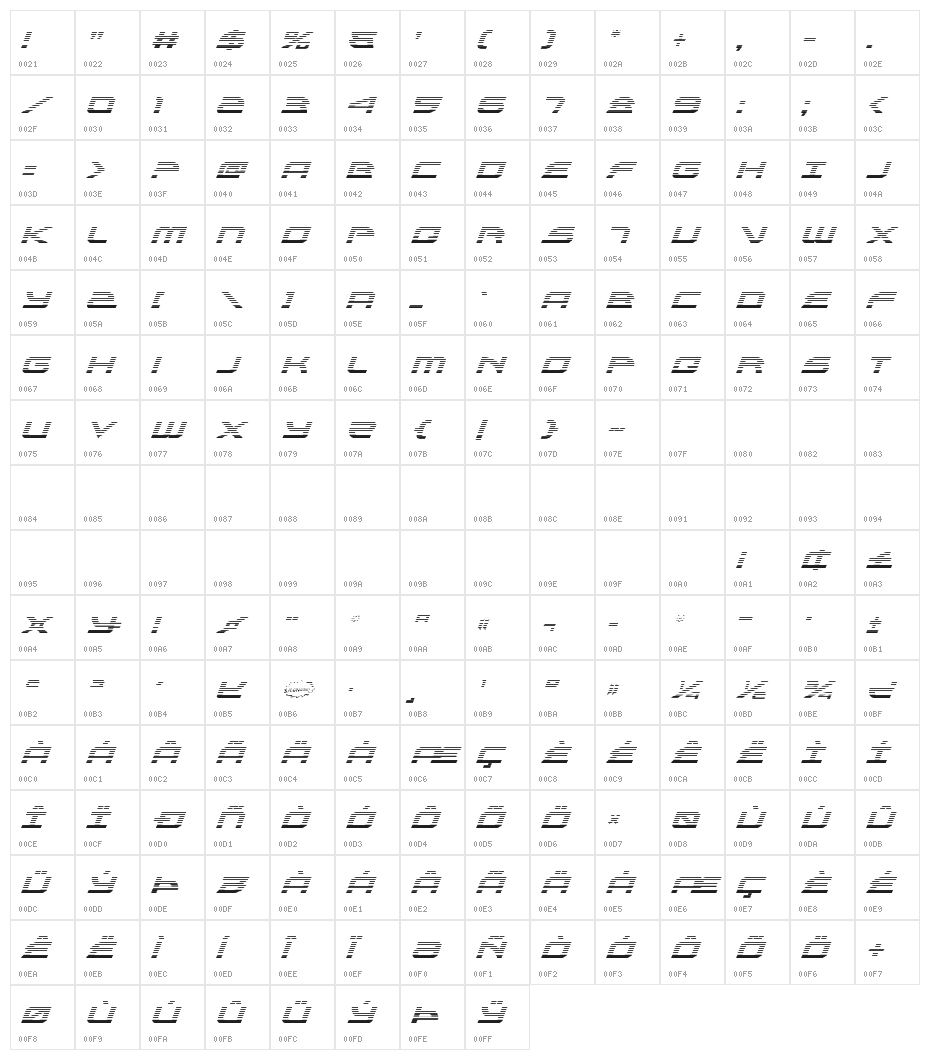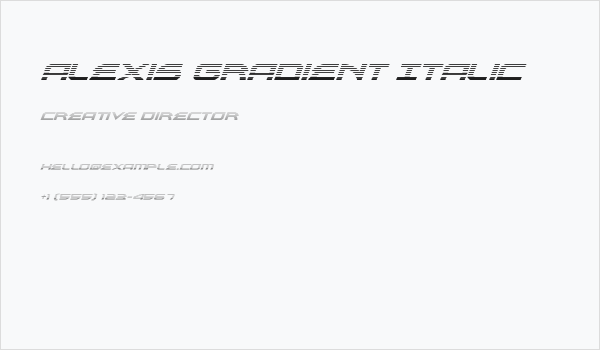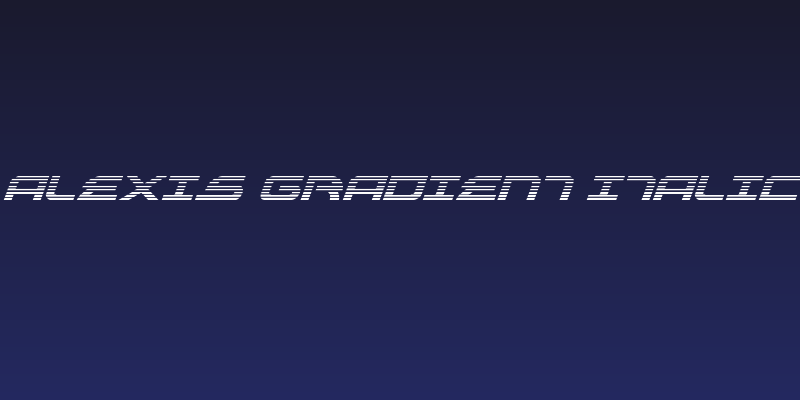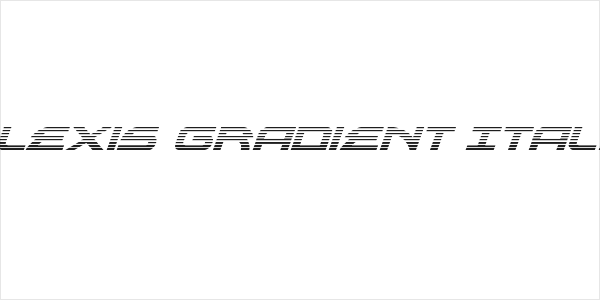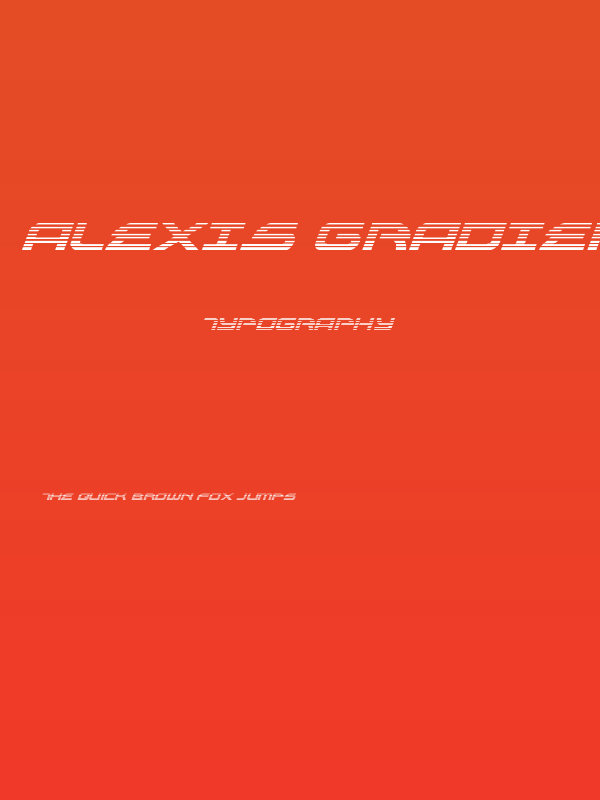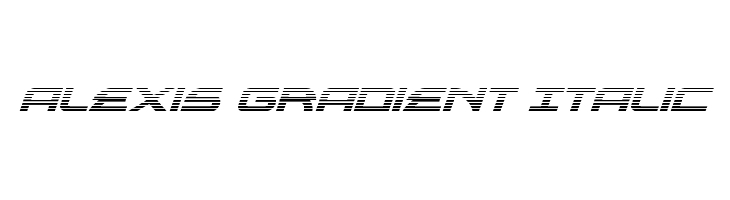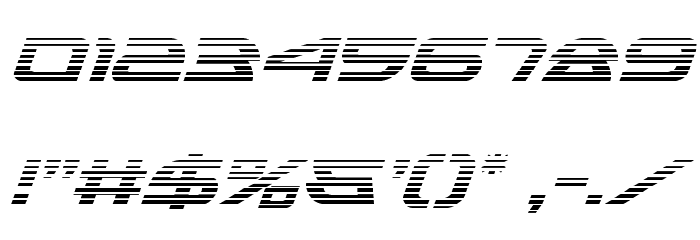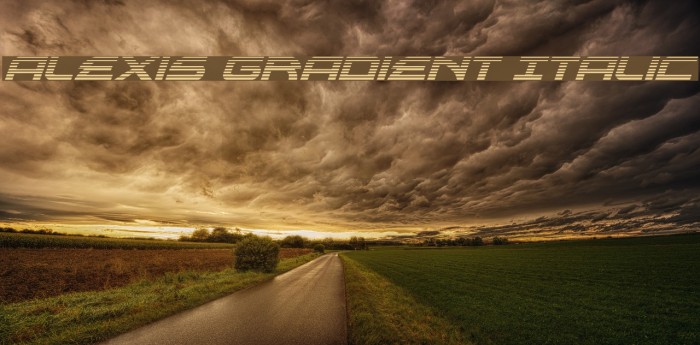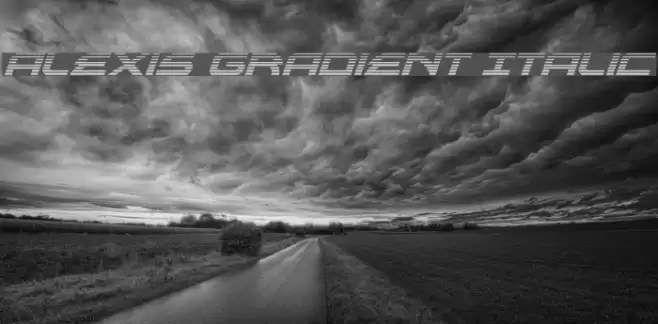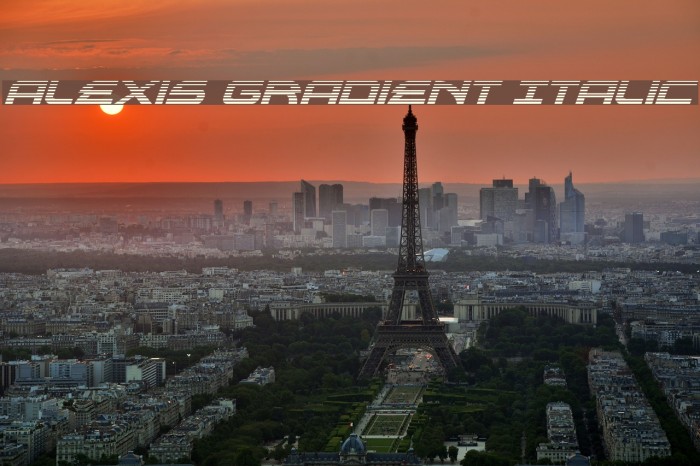
Alexis Gradient Italic Font
Alexis Gradient Italic Description
This font features a unique gradient effect with horizontal lines creating a sense of movement and depth. The italicized style adds a dynamic and forward-leaning appearance, making it stand out. Each character is composed of multiple parallel lines, giving it a futuristic and digital look. The uppercase and lowercase letters maintain a consistent style, while the numbers and special characters seamlessly integrate into the overall design. The font's distinct appearance makes it ideal for projects that require a modern and edgy aesthetic.
| Use Case | Logos, Headlines, Posters |
| Proposed Projects | Ideal for tech branding, digital artwork, modern posters, and futuristic designs. |